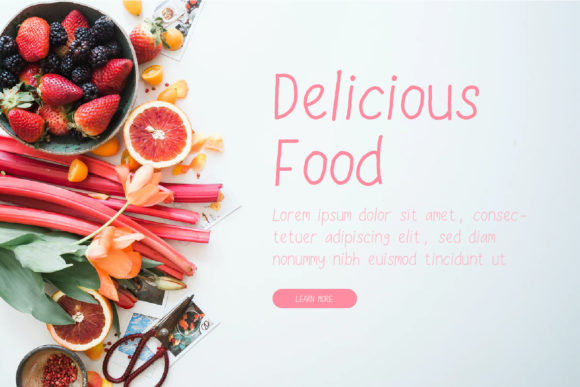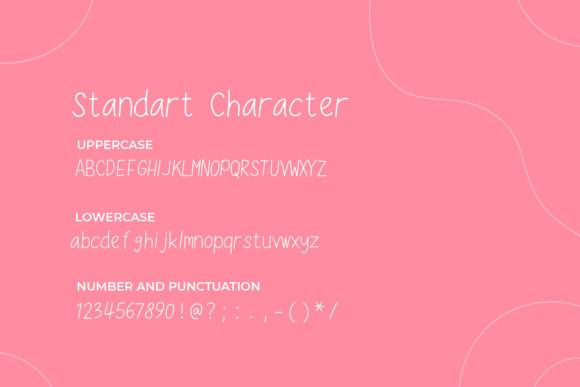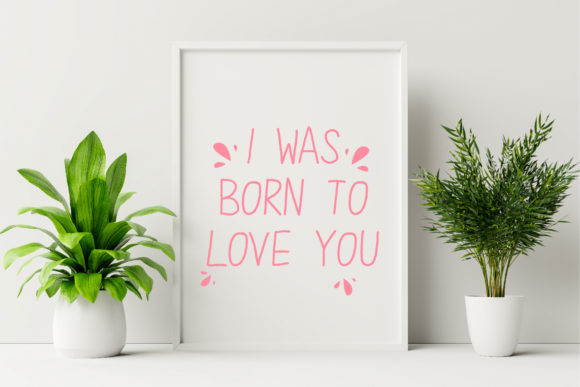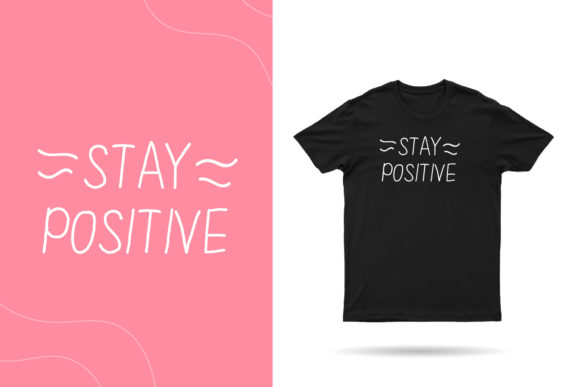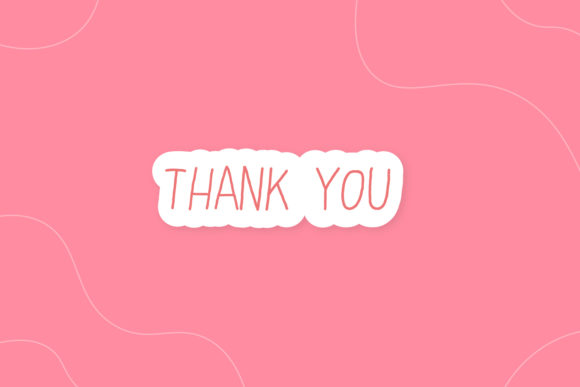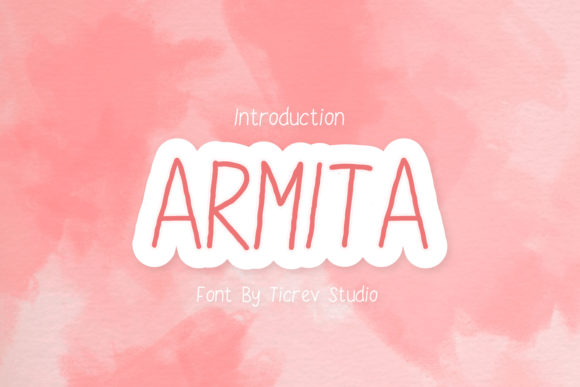
Introducing Armita Font: The Sweet and Friendly Handwritten Font for Your Creative Projects
Are you a designer, crafter, or DIY enthusiast looking for a font that can add a personal touch to your projects? Look no further than Armita Font, a sweet and friendly handwritten font that’s perfect for a wide range of designs. With its natural and unique style, Armita Font is incredibly versatile and can be used in various creative projects, from digital designs to handmade crafts.
The Charm of Armita Font
Armita Font is a beautifully crafted handwritten font that’s designed to bring a touch of warmth and personality to your designs. Its sweet and friendly style makes it perfect for projects that require a personal and approachable feel, such as:
• Digital designs: Use Armita Font in your digital designs, such as social media graphics, blog posts, and website headers, to add a personal touch and make your content more engaging.
• Handmade crafts: Armita Font is perfect for handmade crafts, such as card making, scrapbooking, and journaling. Its unique style will add a touch of personality to your creations.
• Branding and packaging: Use Armita Font in your branding and packaging designs to create a friendly and approachable image for your brand.
The Benefits of Using Armita Font
So, what makes Armita Font so special? Here are just a few benefits of using this amazing font:
• Unique style: Armita Font has a natural and unique style that’s sure to make your designs stand out from the crowd.
• Versatility: Armita Font is incredibly versatile and can be used in a wide range of designs, from digital designs to handmade crafts.
• Easy to read: Despite its unique style, Armita Font is easy to read, making it perfect for body text and headlines.
• Customizable: Armita Font can be easily customized to fit your design needs. You can adjust the font size, color, and style to create a unique look.
How to Use Armita Font in Your Designs
Using Armita Font in your designs is easy. Here are a few tips to get you started:
• Pair it with other fonts: Armita Font looks great when paired with other fonts. Try pairing it with a bold font for a striking contrast.
• Experiment with colors: Armita Font looks great in a variety of colors. Try experimenting with different colors to find the perfect one for your design.
• Use it in combination with images: Armita Font looks great when used in combination with images. Try using it as a overlay font to add a touch of personality to your images.